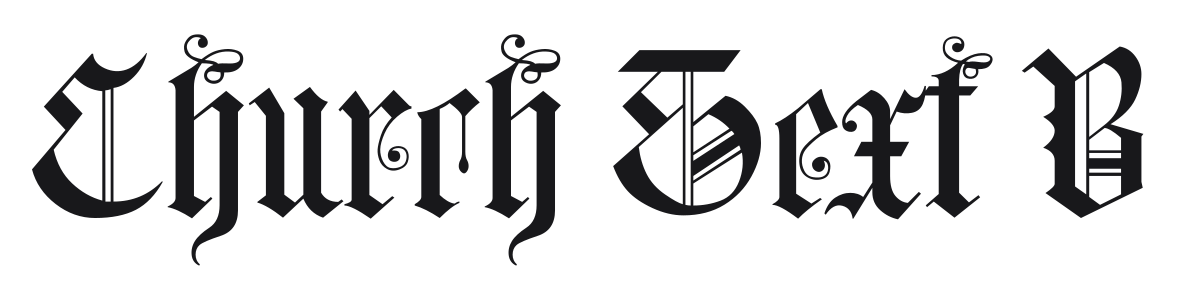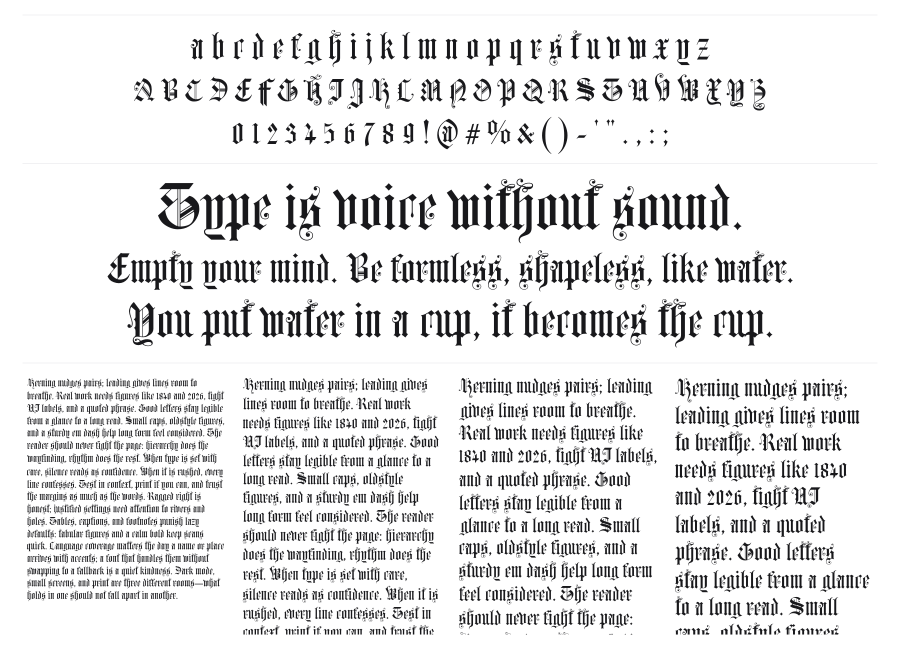
Church Text B
by Torre de Prata
Church Text B is a richly ornamented Textura blackletter with elaborate swash flourishes and curling terminals drawn from the ecclesiastical manuscript tradition. The dense angular construction and high stroke contrast give it a powerful, dramatic presence at large sizes. At home on album covers, gothic branding, tattoo lettering, and any project that calls for medieval authority.